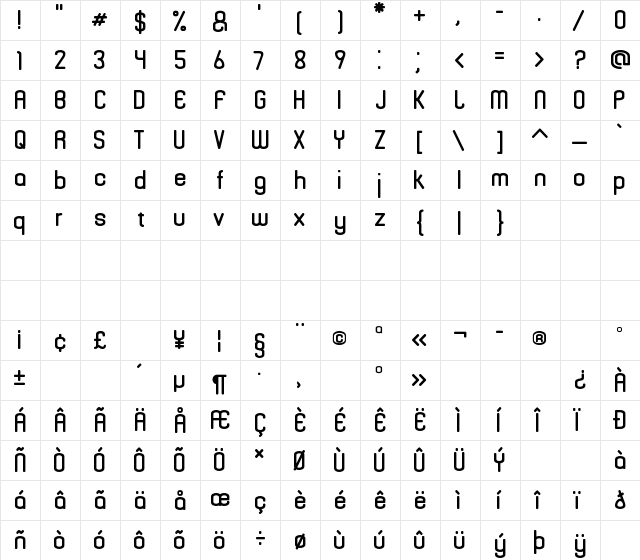
Unity Regular Font Preview
Unity Regular
Design Context for Unity Typeface
Unity offers clean, dependable letterforms without strong stylistic allegiance, making it a practical choice for designers who need flexibility.
Pro Tip: Use Unity in both headline and body roles to test its range before committing to a single application.